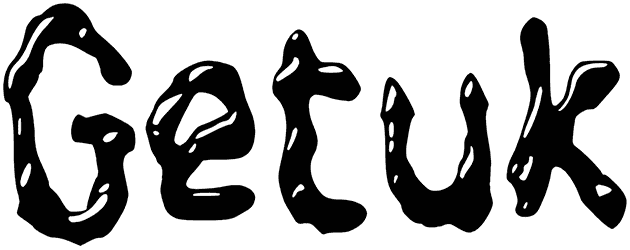
Here we come again to take the honor of introducing a magical liquid font such as Water Drop to you. This masterpiece comes in three distinctive styles.
So, it significantly widens your selection range for bringing your creative ideas, like animation posters, social media posts, educational brochures, stickers, or headlines to real life. Above all, this water font can lead to a sense of naturalism, softness, momentum, or sympathy.
update fixing letter, capital case, lower case, symbol, number, punctuation, plus WATER DROP-Inverse, WATER DROP-Italic